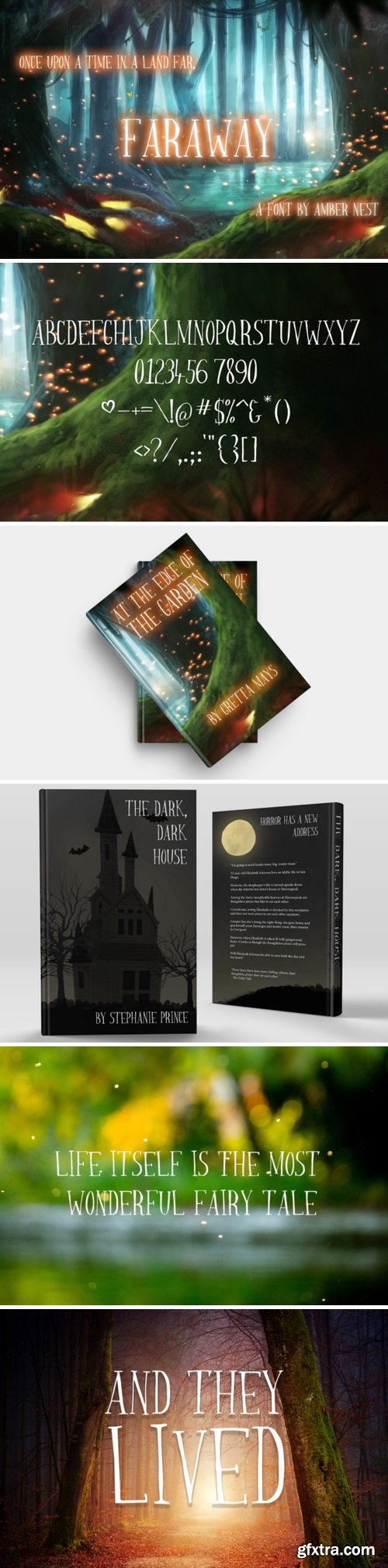
Fontbundles - Faraway 168625
The Faraway is a hand drawn serif font, crafted with magic and a pinch of of fairy dust! This fun display font is perfect for book covers, invitations, and more! Use on t-shirts or flyers and bring a little magic into the world!